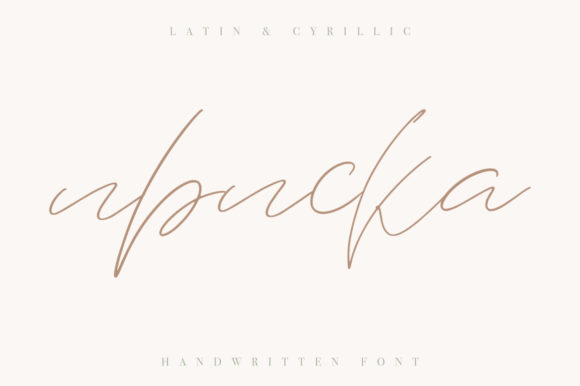
Feast your eyes on Iriska Font, a script font family that beautifully captures the essence of timeless elegance. This creation by Katie Holland is a true gem, delicately crafted to make your designs come alive. Dive into a world of sophisticated aesthetics and let Iriska Font captivate your audience.
Unleash your creativity with Iriska Font, the ultimate choice for crafting logos that exude professionalism and sophistication. Its carefully designed characters dance gracefully, leaving a lasting impression on your customers. Whether you're a seasoned designer or just starting, Iriska Font is your key to creating logos that stand out in the digital landscape.
Harness the power of Iriska Font to elevate your branding endeavors. Its sweeping strokes and subtle nuances add a touch of refinement to any project, allowing your brand's personality to shine through. Whether you're designing business cards, brochures, or social media graphics, Iriska Font ensures your brand identity is unforgettable.
Inspire your audience with picturesque quotes adorned with Iriska Font. Its elegant curves and flourishes lend an air of artistry to your words, making them resonate deeply with your readers. Bring your messages to life with Iriska Font and witness the transformative power of beautiful typography.
Explore the Cyrillic alphabet with Iriska Font, your gateway to captivating designs that transcend linguistic barriers. Embrace the beauty of different languages and expand your creative horizons. With Iriska Font, you can communicate your message to a global audience, leaving an impression that knows no bounds.